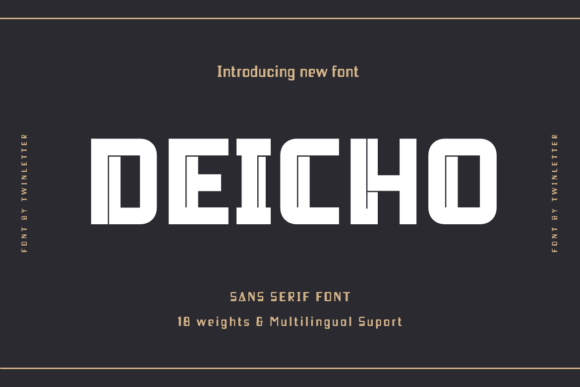
Unleash the terror and captivate your audience with Deicho Sans Serif, the ultimate font family for creating spine-chilling horror posters that haunt the senses. This remarkable font, masterfully crafted by twinletter, will send shivers down their spines and send shivers down your spine. Step into the realm of darkness and embrace the eerie aesthetics that Deicho Sans Serif brings to life.
With 18 distinct styles at your disposal, Deicho Sans Serif empowers you to orchestrate a symphony of horror that will leave an indelible mark on your audience. Create titles that scream with dread, subtitles that whisper with menace, and body text that weaves a web of suspense that will keep them glued to their screens.
Deicho Sans Serif is not just a font; it's a gateway to a world of nightmares and twisted realities. Its meticulously designed characters evoke unease and dread, drawing your audience into the depths of your horrifying tale. Whether you're crafting a chilling poster for a haunted house, a spine-tingling horror movie, or an unsettling novel, Deicho Sans Serif will elevate your project to new heights of terror.
Don't settle for mundane fonts that fail to capture the essence of horror. Embrace the darkness with Deicho Sans Serif and let your creativity run wild. Its versatility extends beyond horror, making it a perfect choice for projects seeking a touch of the macabre or the supernatural.
From haunting posters that advertise your latest horror masterpiece to eerie invitations for your Halloween party, the possibilities are endless with Deicho Sans Serif. Take your designs to a new level of fearsome beauty and leave your audience trembling with anticipation.